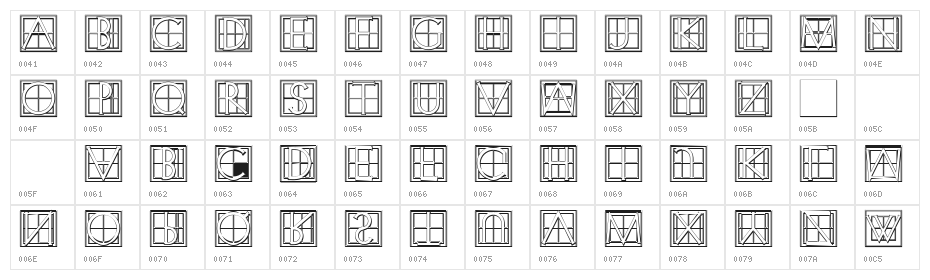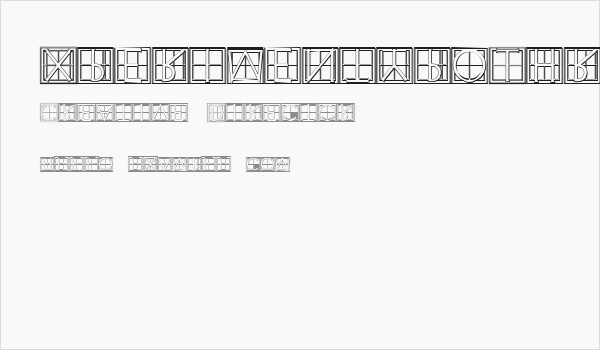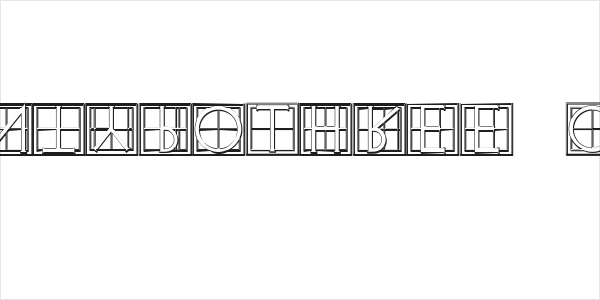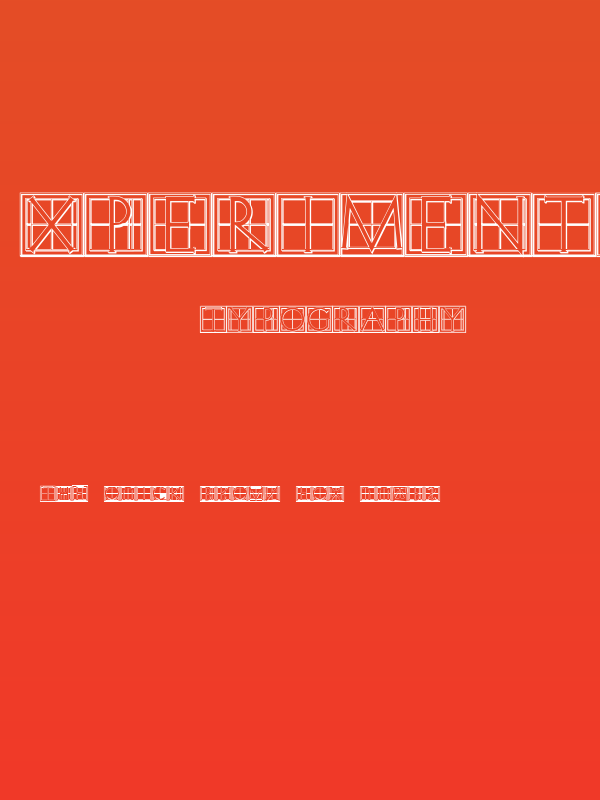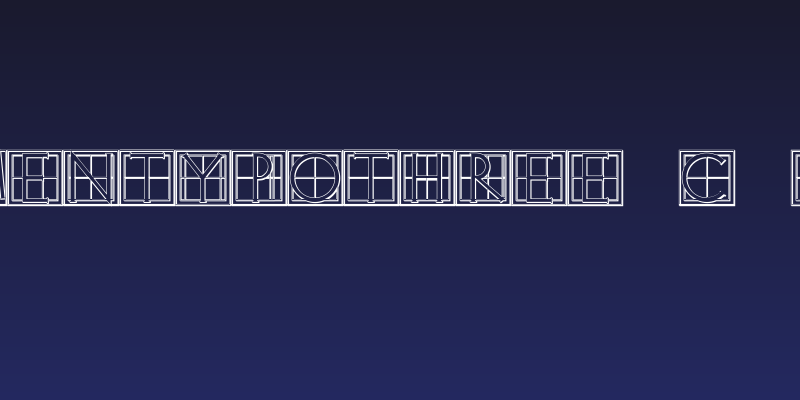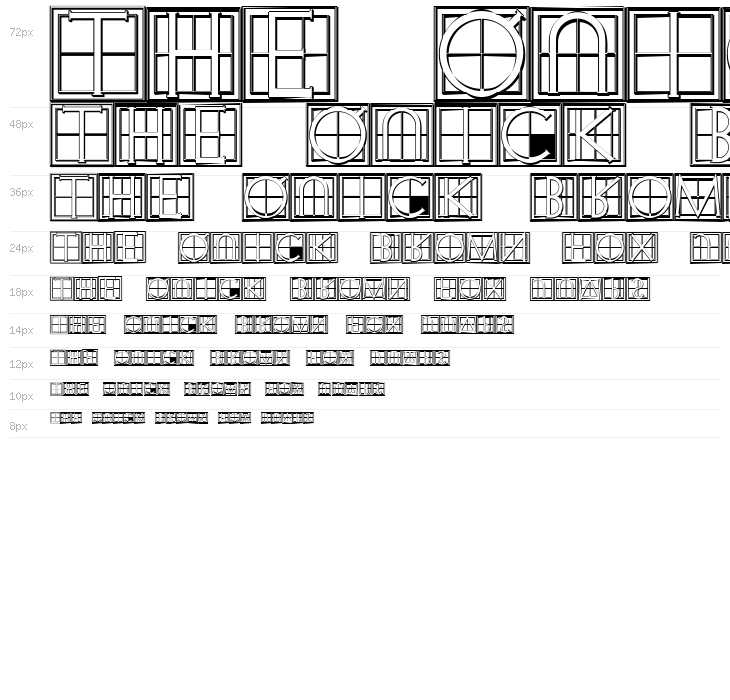
XperimentypoThree-C-Square Font
XperimentypoThree-C-Square Description
This font features a unique and experimental design, with each character enclosed within a square frame. The letters are constructed using geometric shapes, creating a sense of symmetry and balance. The use of lines and angles gives the font a modern and architectural feel, while the enclosed squares add a structured and organized appearance. The font is highly decorative, making it suitable for creative and artistic projects. Its distinct style ensures that it stands out, making it ideal for attention-grabbing headlines or logos.
| Proposed Projects | Ideal for creative projects such as posters, album covers, branding, and logos where a bold and artistic statement is desired. |